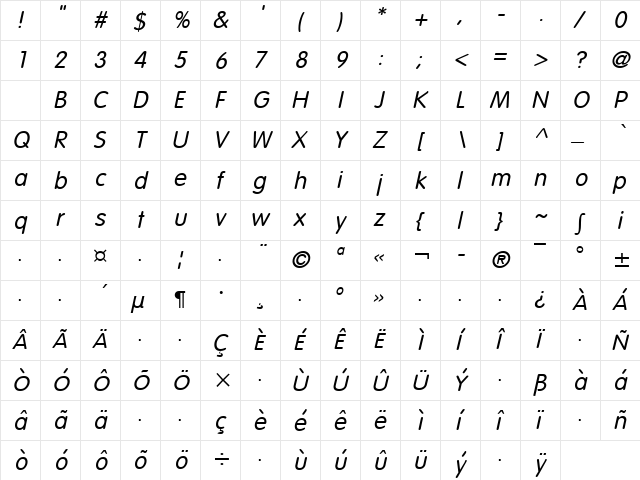
Balloon Oblique
Design Context for Balloon Typeface
Balloon is a composed and adaptable typeface that performs quietly and consistently across a wide range of design contexts. Its italic angle brings a sense of urgency and motion to the letterforms.
Pro Tip: Use Balloon for emphasis, pull quotes, and subheadings where its slanted energy can add rhythm to the layout.